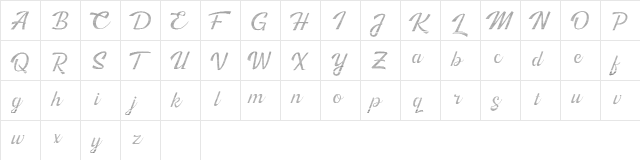
Kingfisher Full Engraved Regular
Design Context for Kingfisher Full Engraved Typeface
Kingfisher Full Engraved is built around its visual character rather than neutral utility — its distinctive forms are designed to make an impression at display sizes.
Font Pairing: Pair with a clean neutral sans-serif for body copy to let Kingfisher Full Engraved's character lead without overwhelming the composition.
Pro Tip: Treat Kingfisher Full Engraved as the centrepiece of your typographic hierarchy. One strong heading set in a decorative face can carry an entire layout.